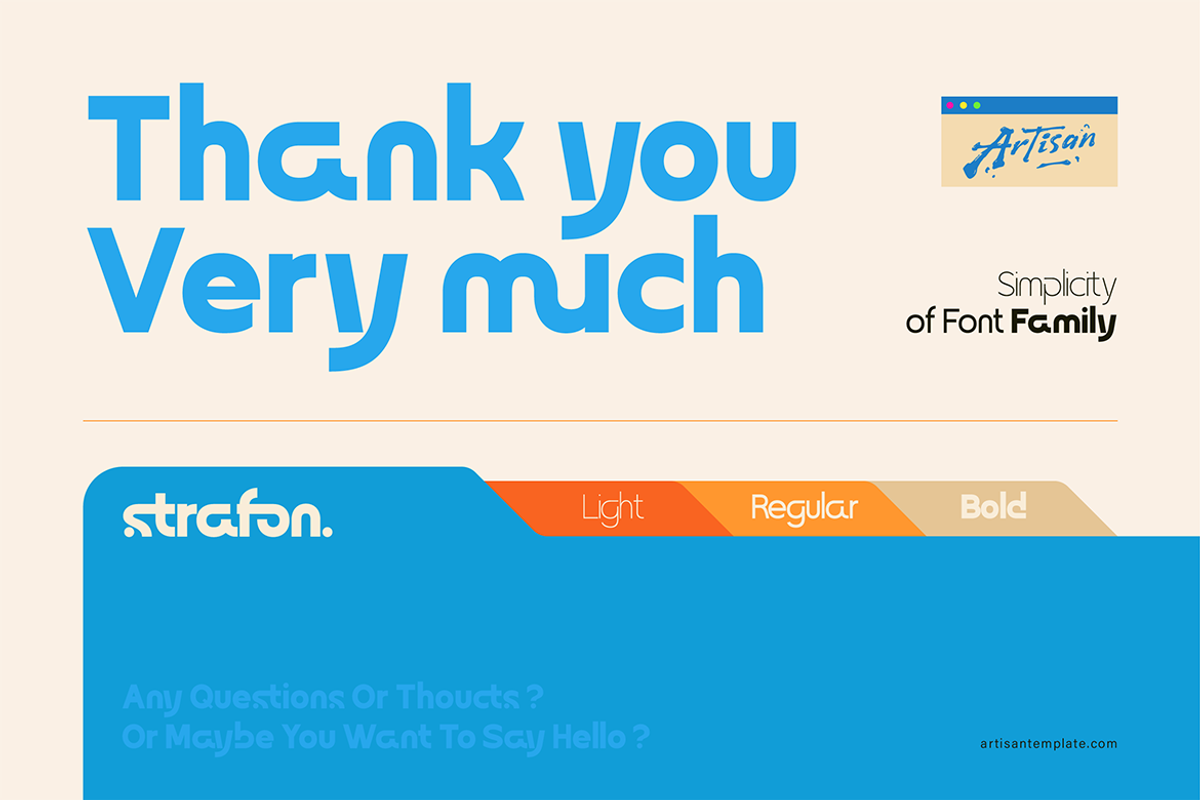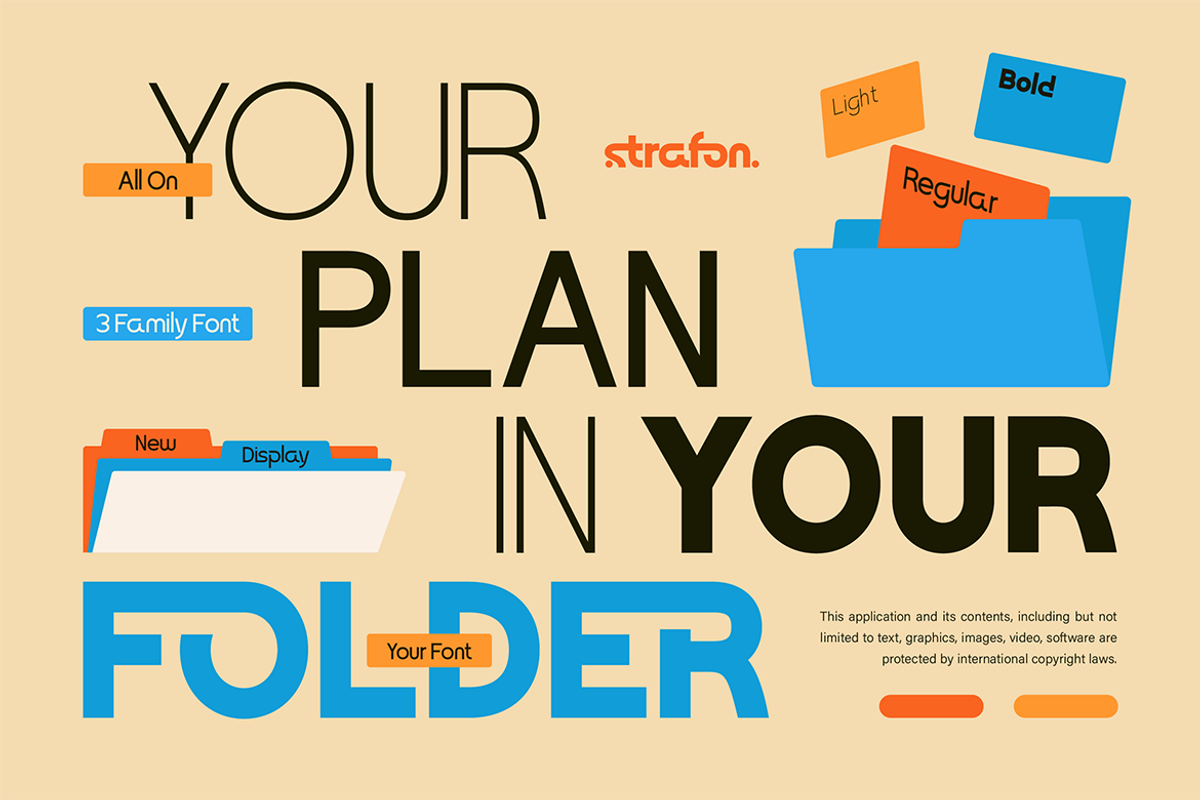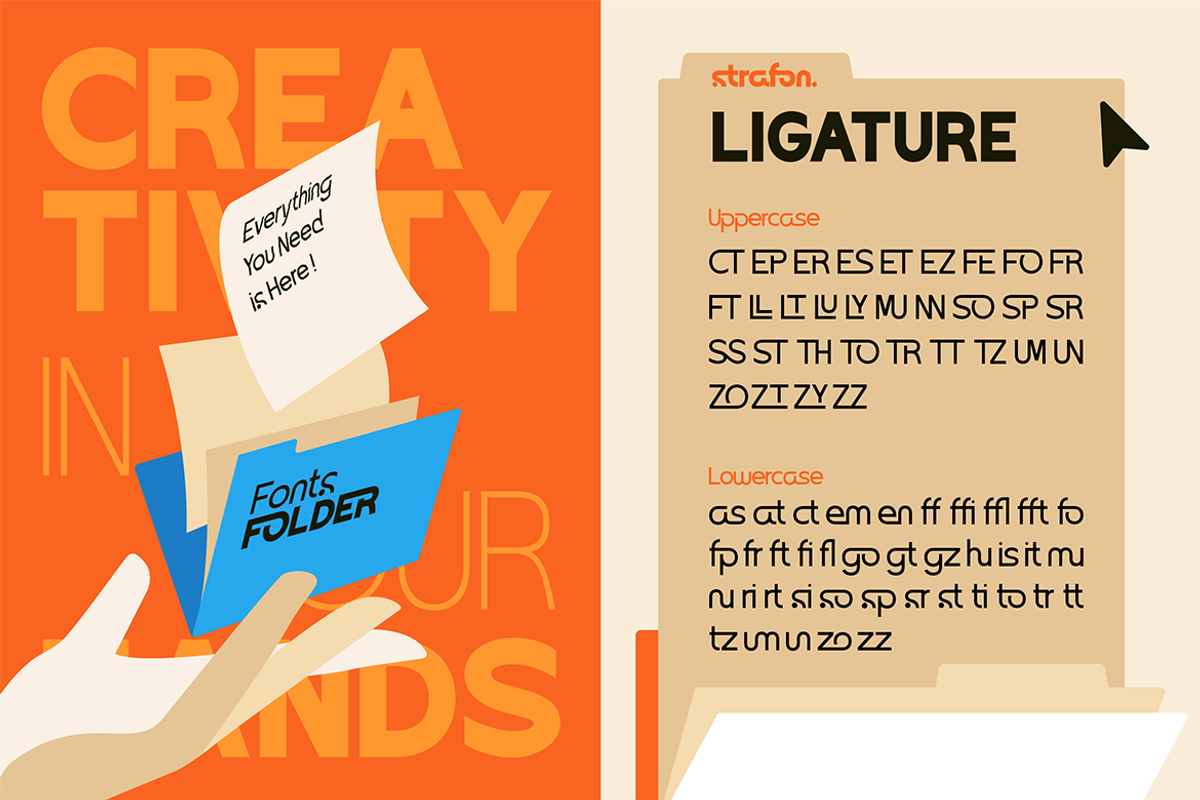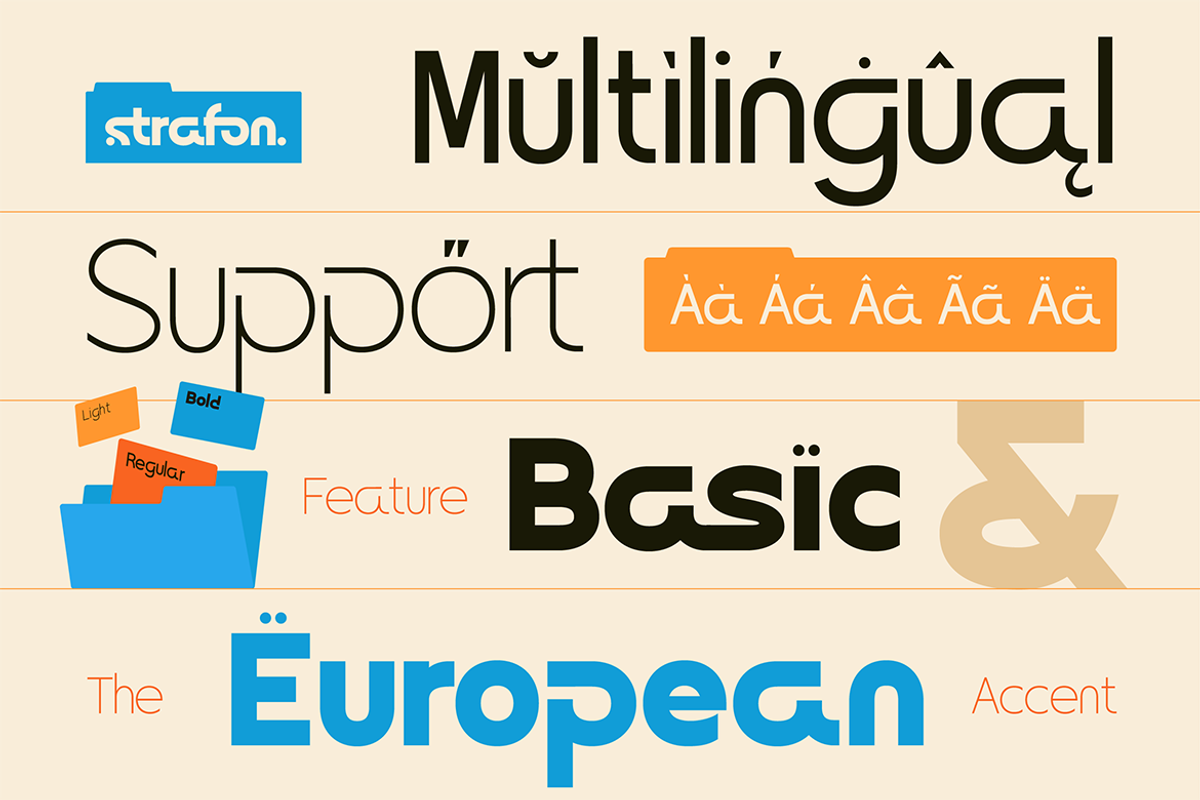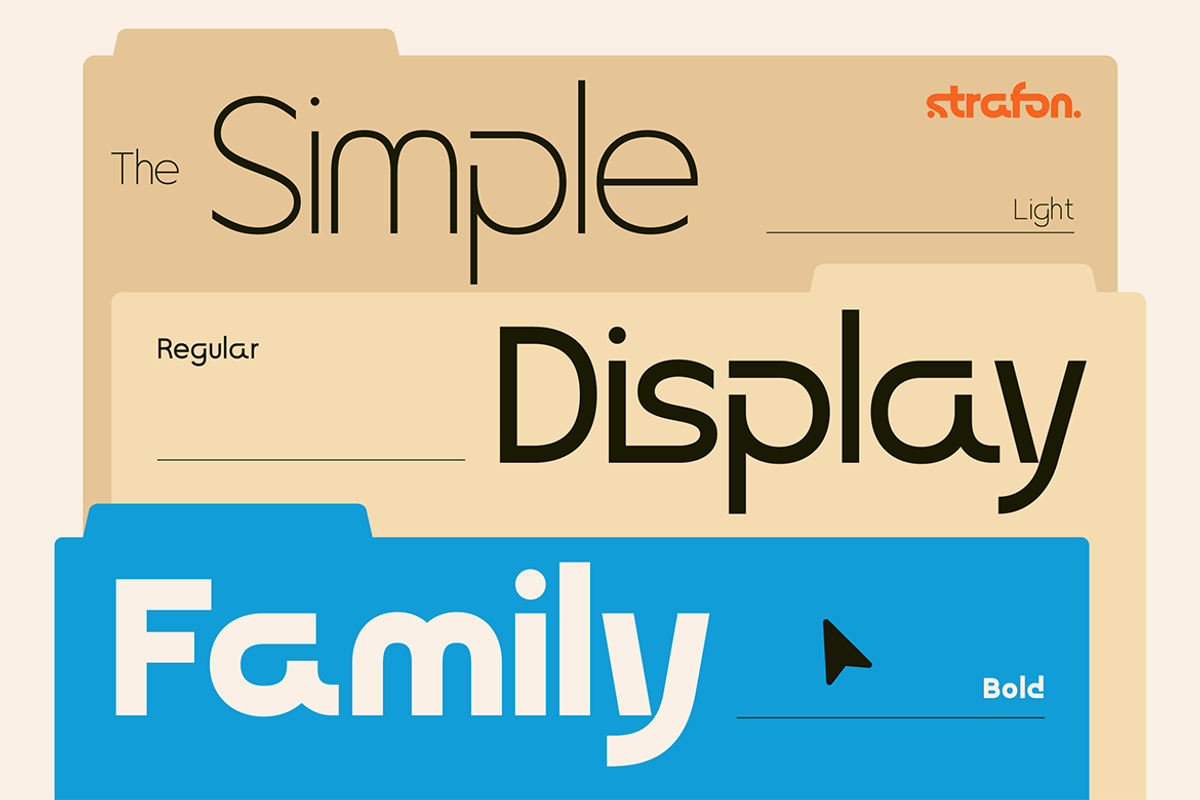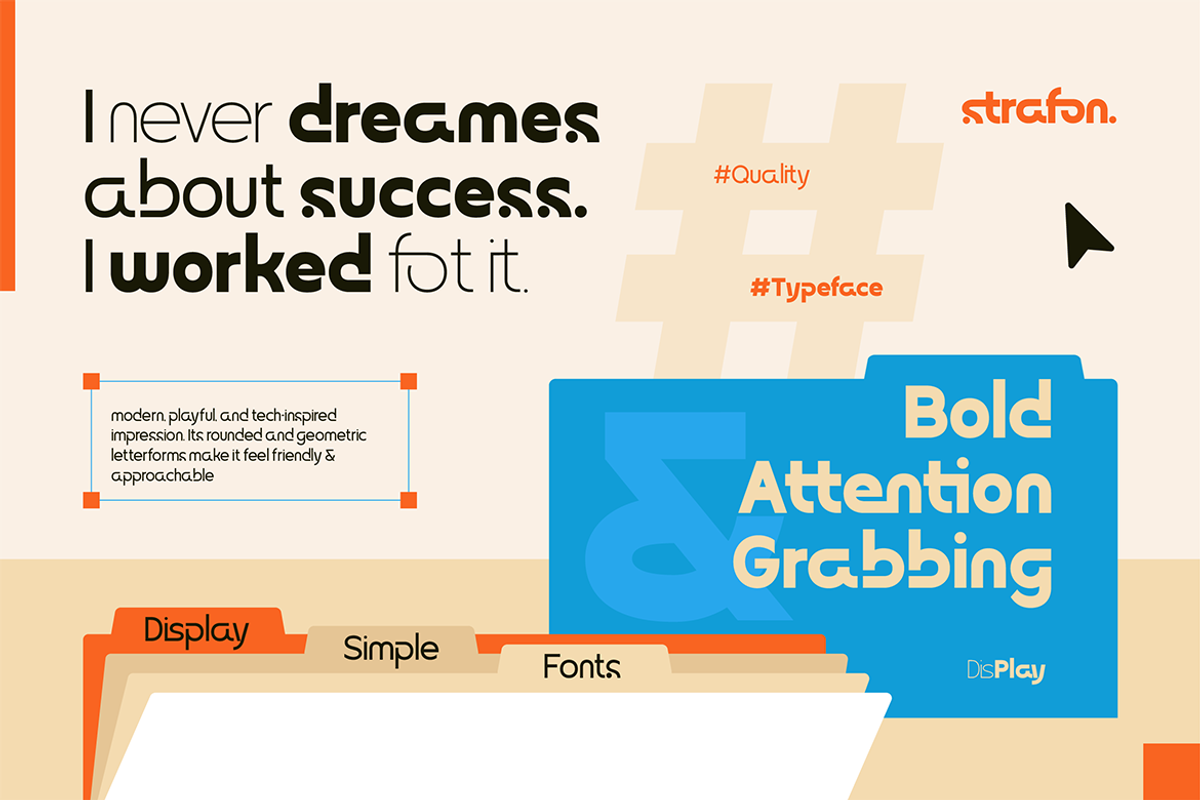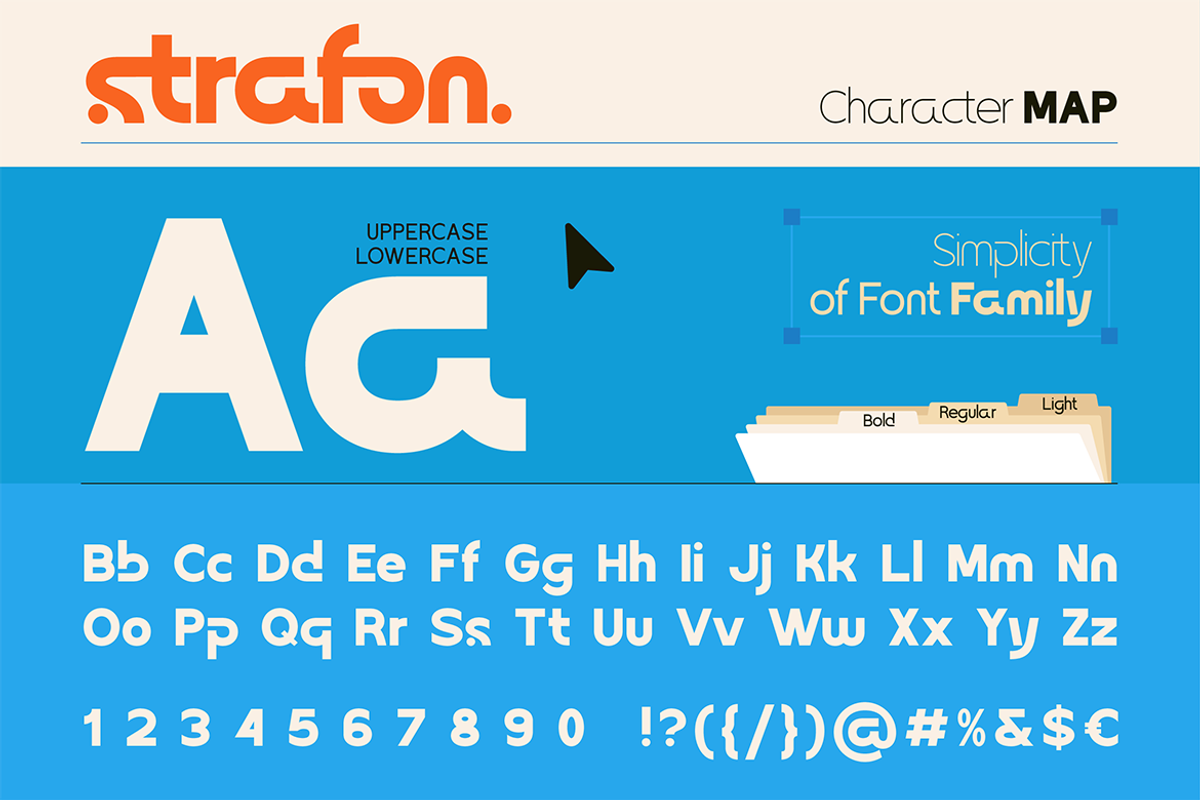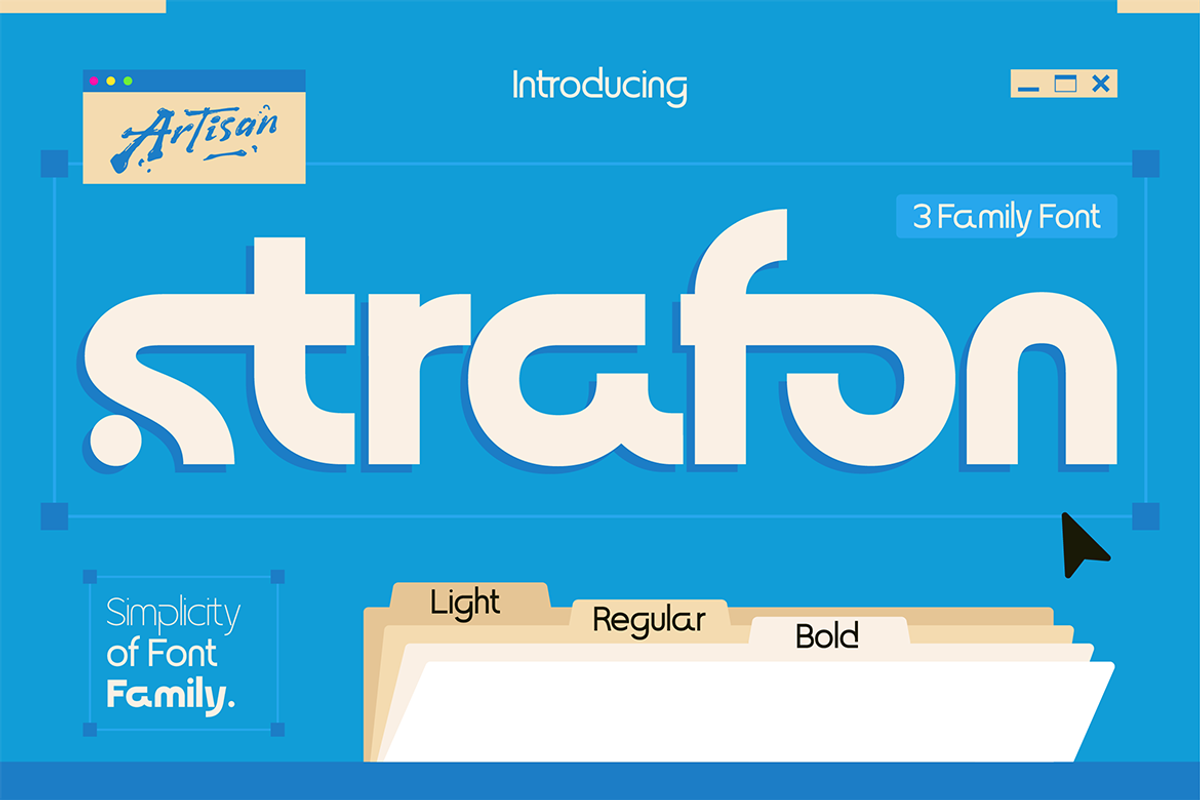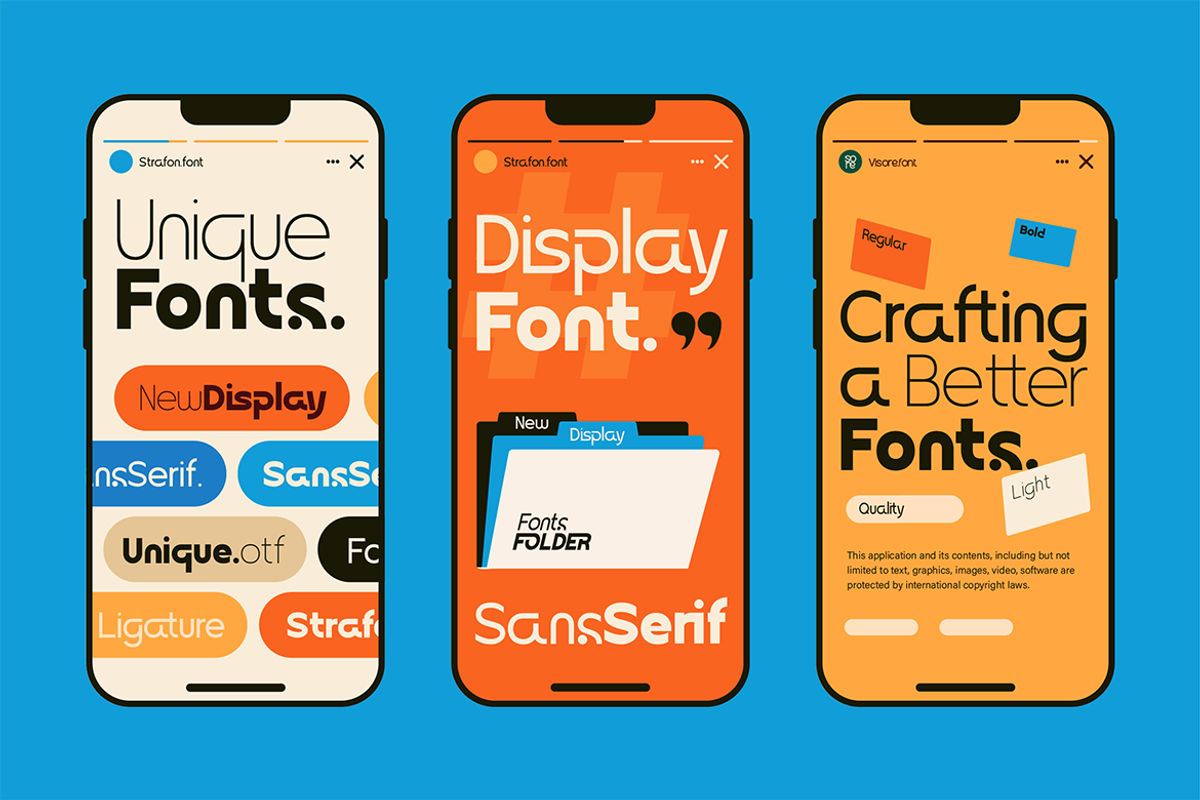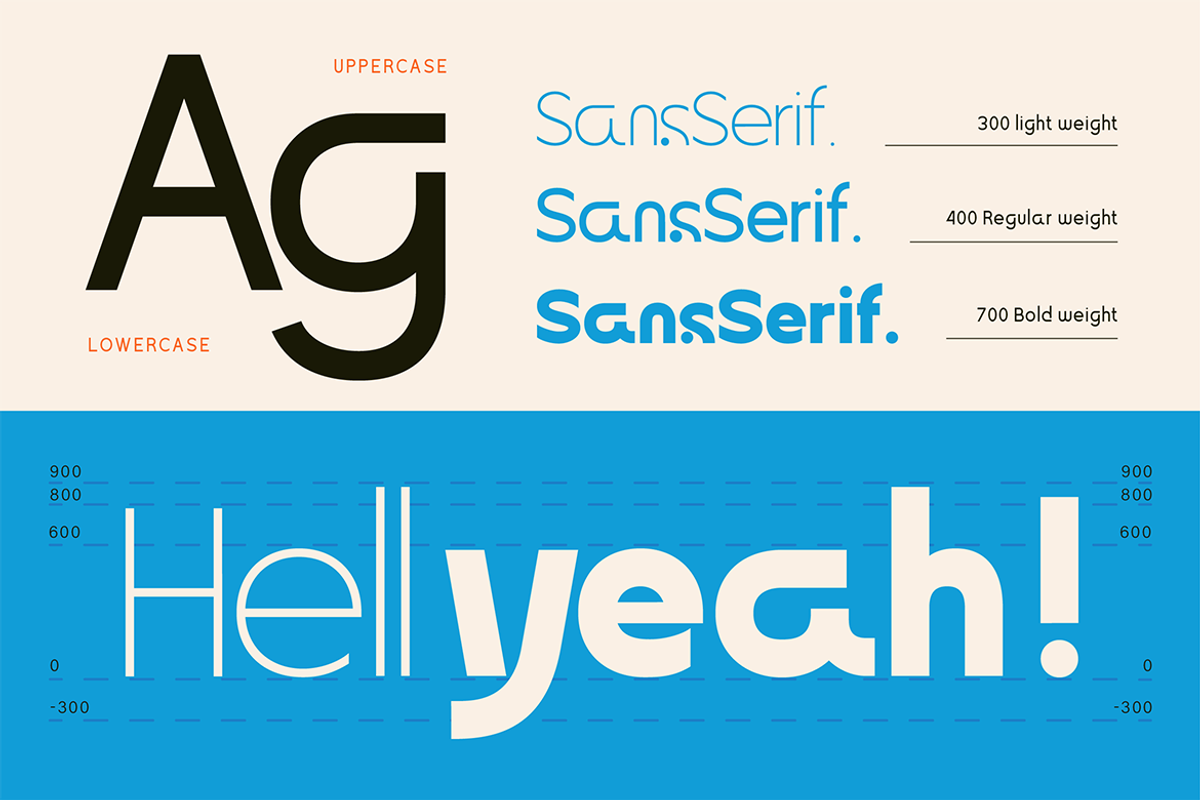
Strafon
Strafon is a clean, modern, and super–versatile display sans serif that instantly gives your design that corporate-but-cool energy. With rounded edges, smooth curves, and a bold futuristic touch, this font family is made to stand out effortlessly. It comes in 3 weights (Light, Regular, Bold)—perfect for creating logos, headlines, branding systems, UI design, and anything that needs a structured yet friendly vibe. Inspired by folder shapes and organized layouts, Strafon brings clarity, style, and personality into one cohesive font family. If you're aiming for something professional, stylish, and fresh, Strafon is the font that gets the job done.